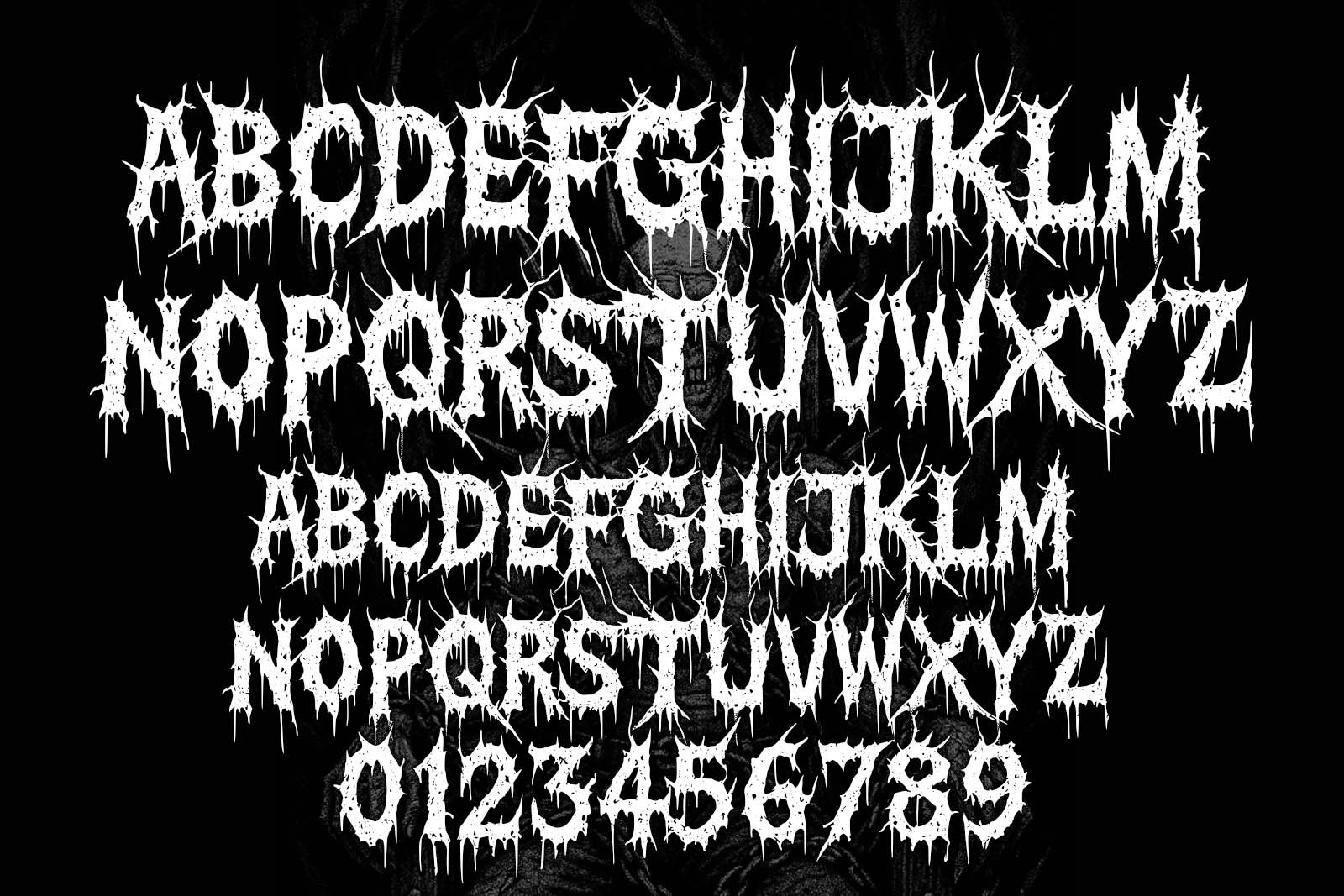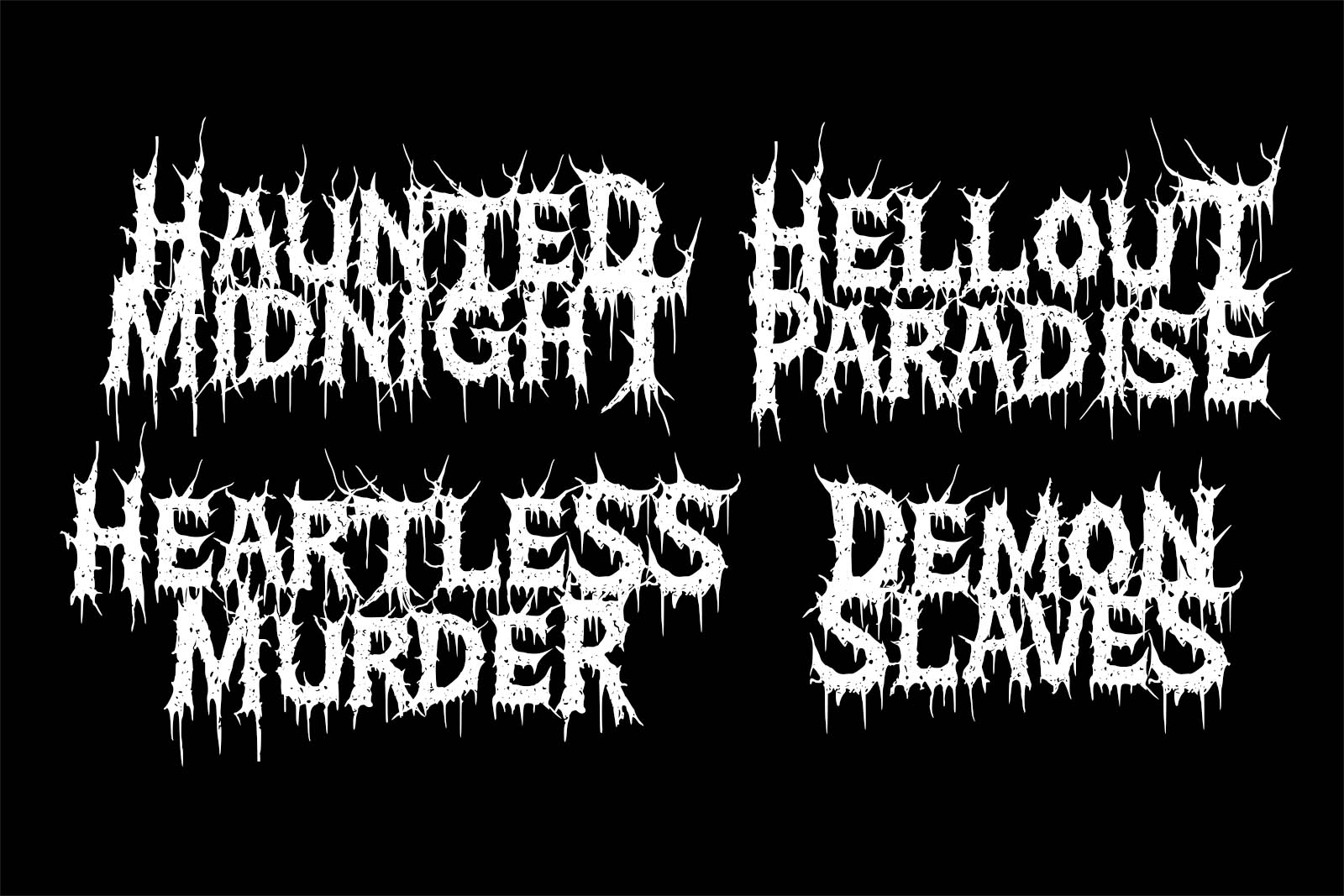
Scariest Halloween – Brutal Halloween Font by BlackMetalFont.com
Summon the darkness of October nights with Scariest Halloween, a brutal horror typeface drenched in fear, decay, and ghostly dread. Created by the masters of underground typography at BlackMetalFont.com, this font is forged from the essence of halloween, scary movies, and the bloodcurdling spirit of haunted cinemas.
With its dripping edges, torn textures, and grotesque horror shapes, Scariest Halloween captures the raw energy of death metal logos and injects it into a Halloween universe. It's perfect for horror film titles, haunted house posters, ghost-themed party invitations, scary merch, or any project that dares to embrace the night.
Whether you're designing for a ghost movie, haunted cinema, or an evil pumpkin king, this typeface screams terror. Type your words—and they bleed.
Font Features:
Brutal, black metal-inspired horror letterforms
Uppercase with alternate terminal caps for extra distortion
Complete lowercase for detailed horror typography
Bonus ornamental extras to elevate your spooky compositions
Best for Halloween posters, scary games, deathcore bands, cinema graphics, and terrifying branding
Designed to help you create horror logos in seconds, this font is a must-have for any Halloween project that wants to stand out with raw brutality and cinematic fear.
Make your audience scream before they even hit play.